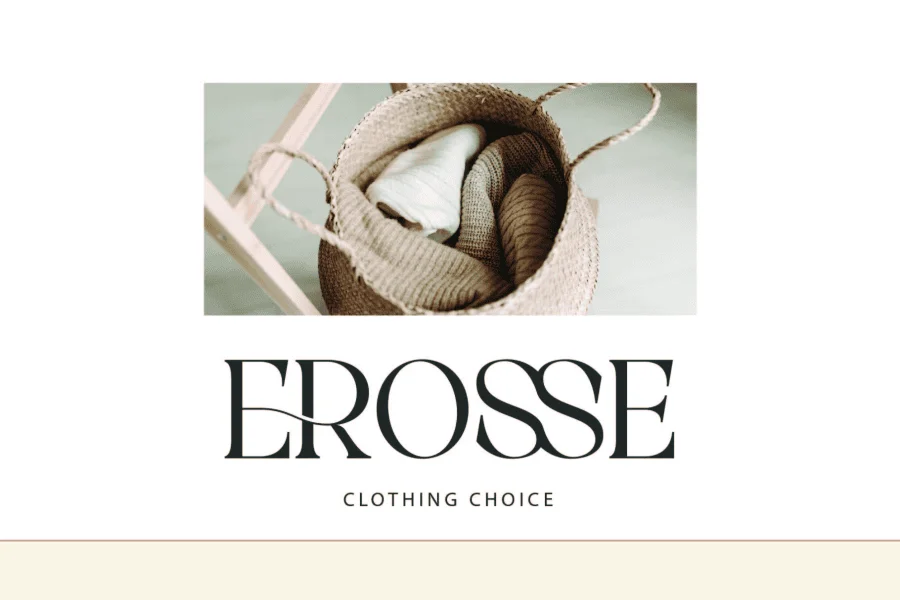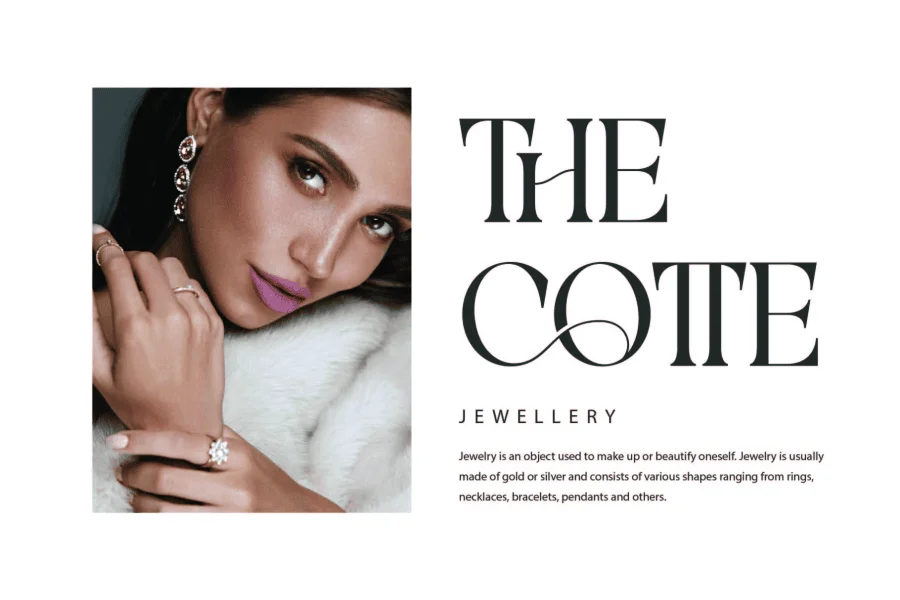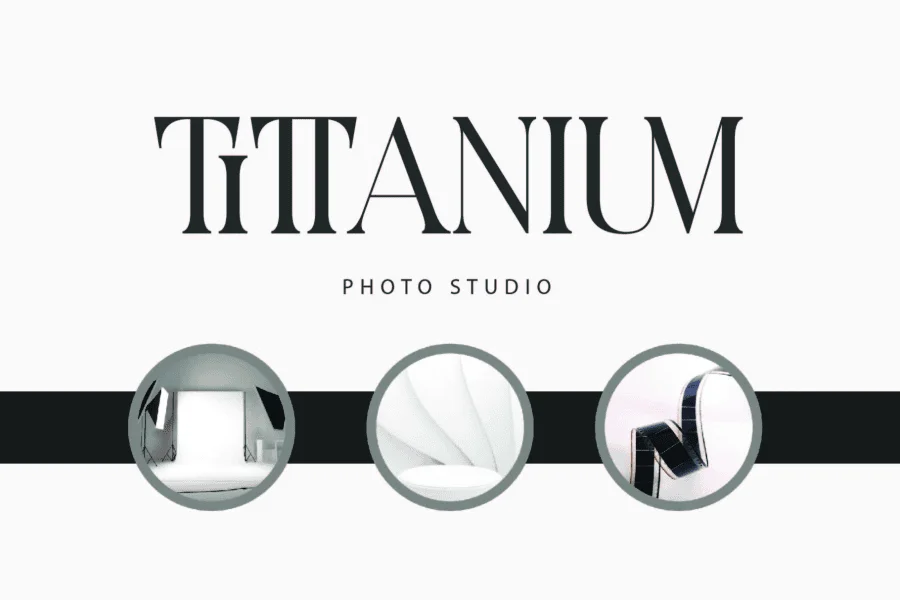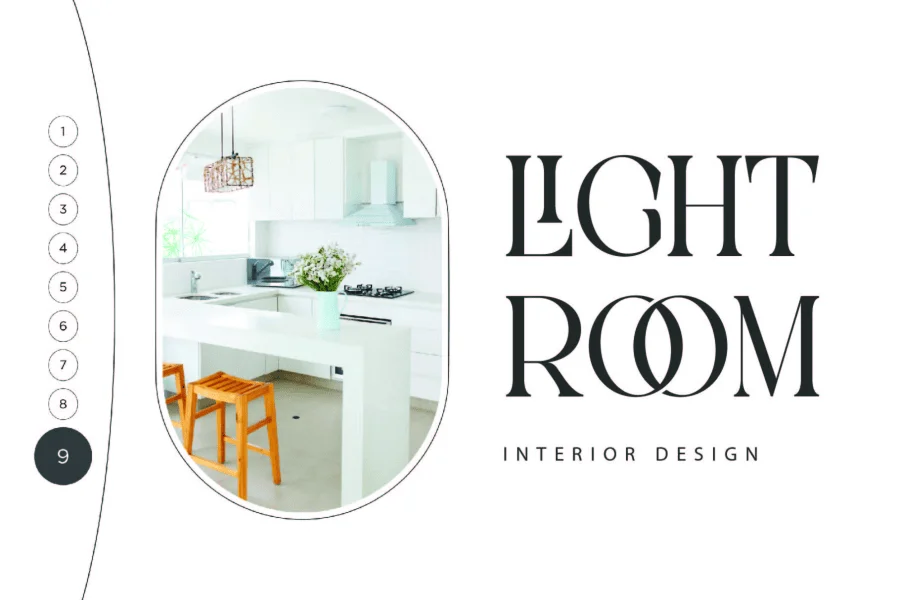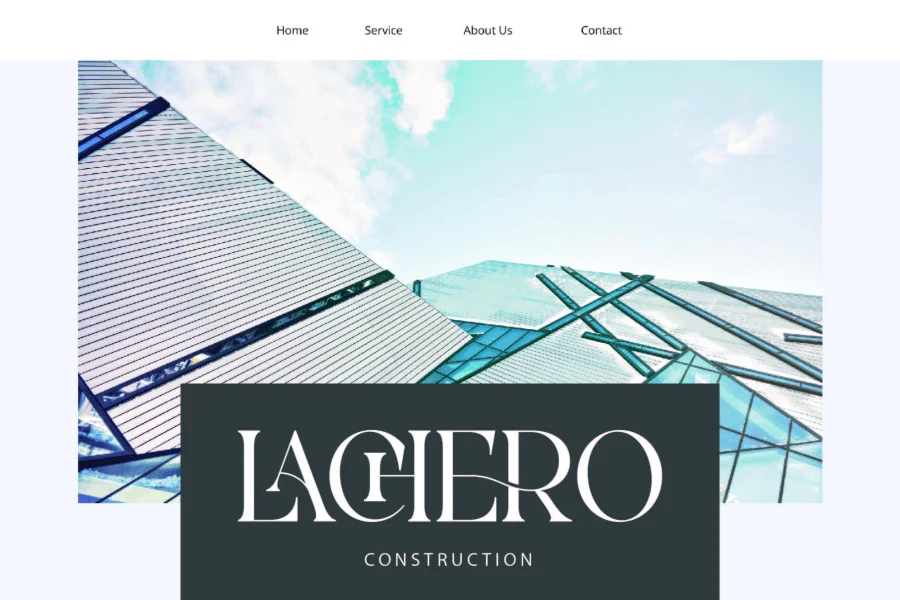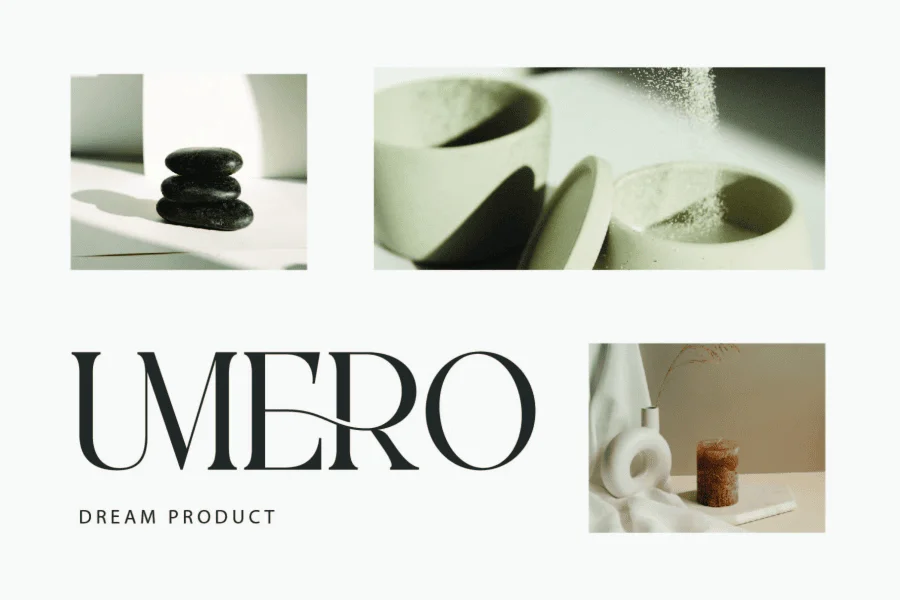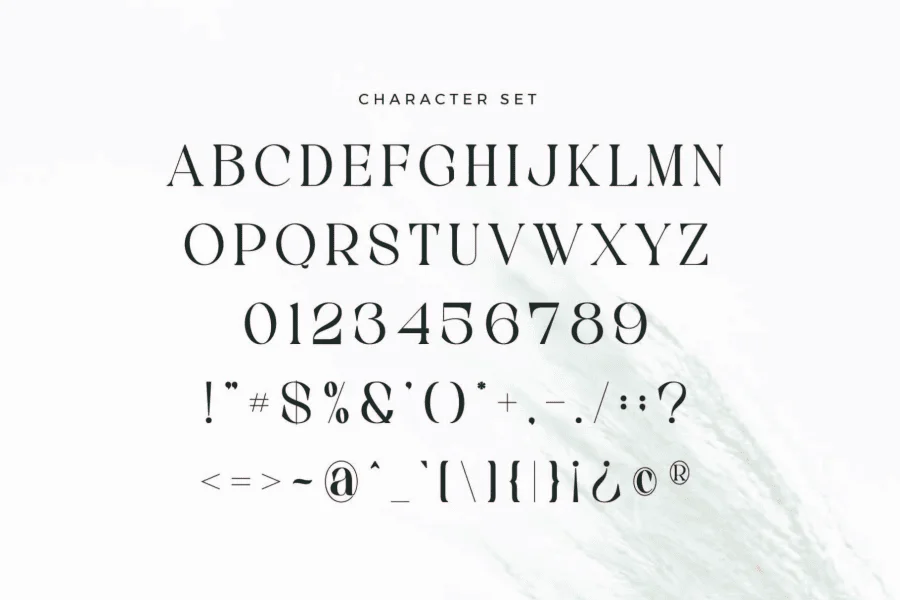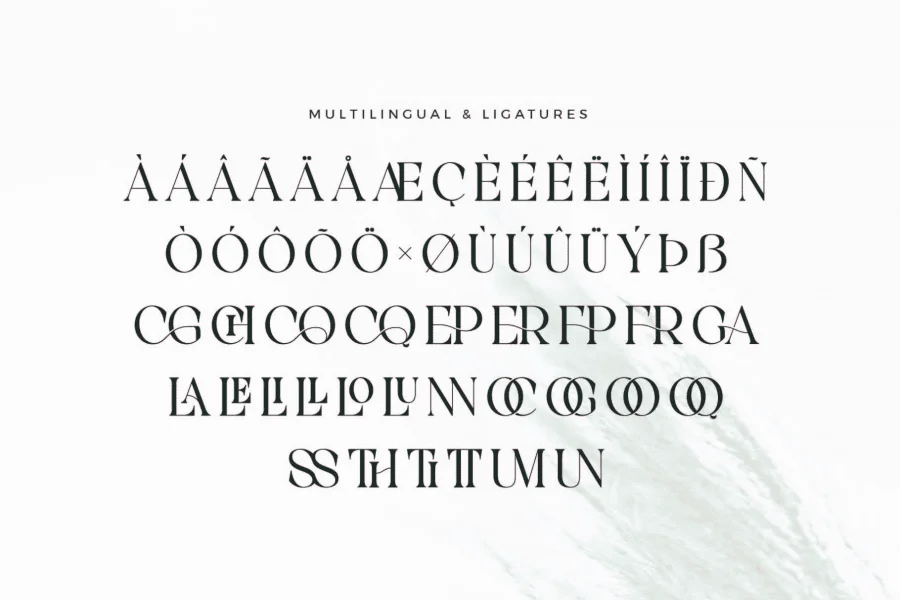
Gacor is a high-contrast display serif typeface that balances classic proportions with expressive, fluid details. Its structure is defined by a dramatic interplay between robust vertical stems and ultra-thin horizontal strokes, creating a sharp, elegant texture. The letterforms are grounded by sharp, planar serifs, while select characters feature sweeping, calligraphic ligatures and elongated, looping crossbars that weave gracefully into adjacent letters. This combination of rigid, architectural geometry and organic, flowing flourishes gives the typeface a sophisticated yet dynamic personality.
Designed for high-impact visual environments, this typeface is exceptionally well-suited for editorial mastheads, luxury branding, and upscale packaging. Its refined contrast and decorative ligatures make it an ideal choice for fashion labels, jewelry houses, interior design portfolios, and premium lifestyle publications where typography serves as a central design element.